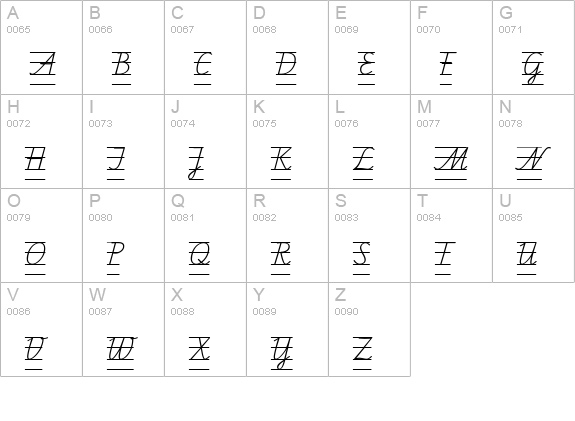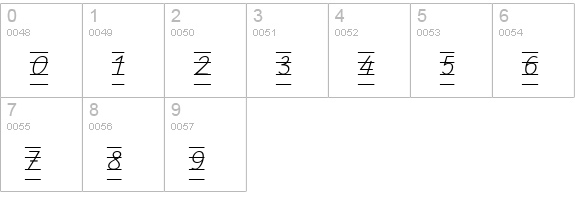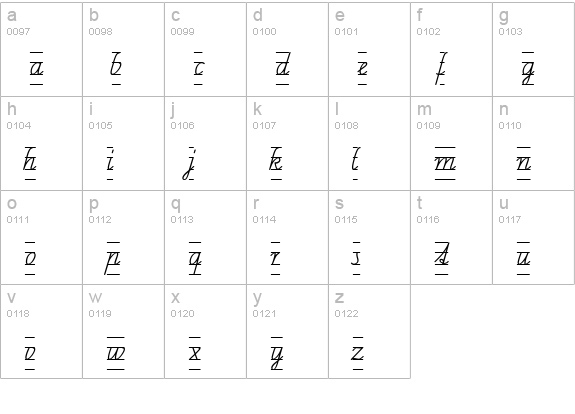
SchulschriftCL4 Font Details
SchulschriftCL4 is a beautifully crafted font that perfectly captures the essence of classic school handwriting. With its elegant strokes and clean lines, this font is ideal for various applications including educational materials, children's books, and creative projects. Designed with precision and attention to detail, SchulschriftCL4 brings back the nostalgia of handwritten notes and exercises on lined paper. Its subtle imperfections give it a personal touch, making it feel authentic and organic. What sets SchulschriftCL4 apart is that it is not only a high-quality font, but it is also freely available to download. You can easily access this font at FontsMarket.com, making it accessible to everyone who wants to add a touch of elegance and nostalgia to their designs. Whether you are a teacher looking for a font that resembles the handwriting of your students or a designer wanting to evoke a sense of nostalgia, SchulschriftCL4 is the perfect choice. Its versatility and timeless appeal make it a must-have in every designer's toolkit. So, why wait? Download SchulschriftCL4 today from FontsMarket.com and unleash your creativity with this stunning font that effortlessly captures the beauty of classic school handwriting.